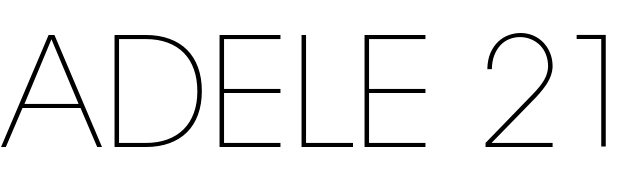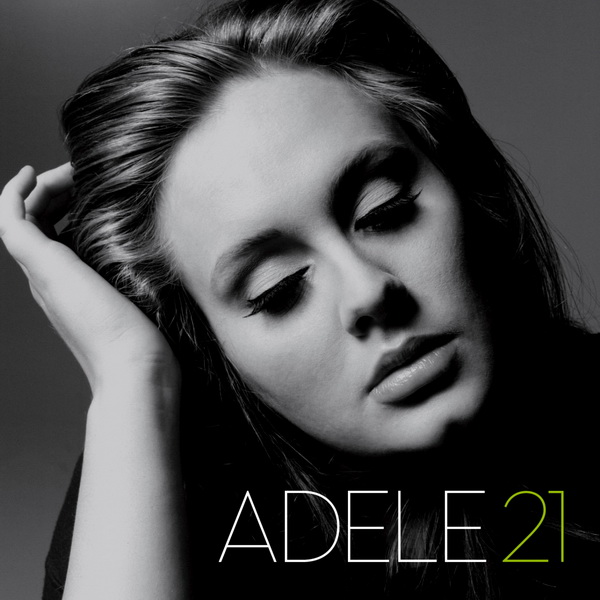
Adele 21 Font
Fonts in Use21 is Adele's second studio album released in 2011 and became an instant commercial success, winning multiple Grammy Awards and selling over 31 million copies worldwide.
The font used on the album cover of "Adele 21" appears to resemble Avant Garde Gothic Extra Light, a geometric sans-serif font that is commercially available. Additional information about the font can be accessed here.